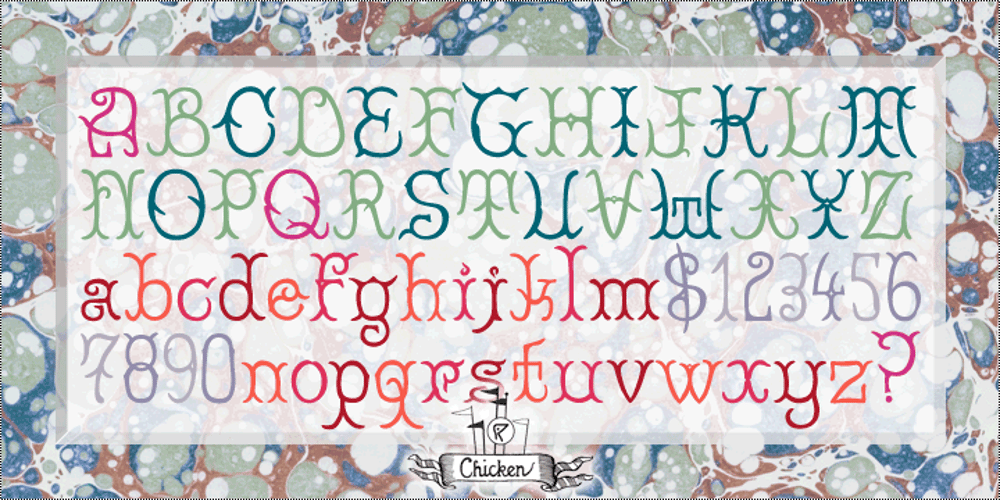
Galerie Simpson Font Family was designed by Tim Barnes and published by chicken. Galerie Simpson contains 1 styles and family package options. An entirely strange, illogical and inconsistent font packed with inappropriate curlicues and appendages “translated and composed” from a few words on a crumbling fragment of Victorian sheet music. It was developed to form the logotype and display text of a manifesto for a creative collective working as artists, researchers, producers and agents.